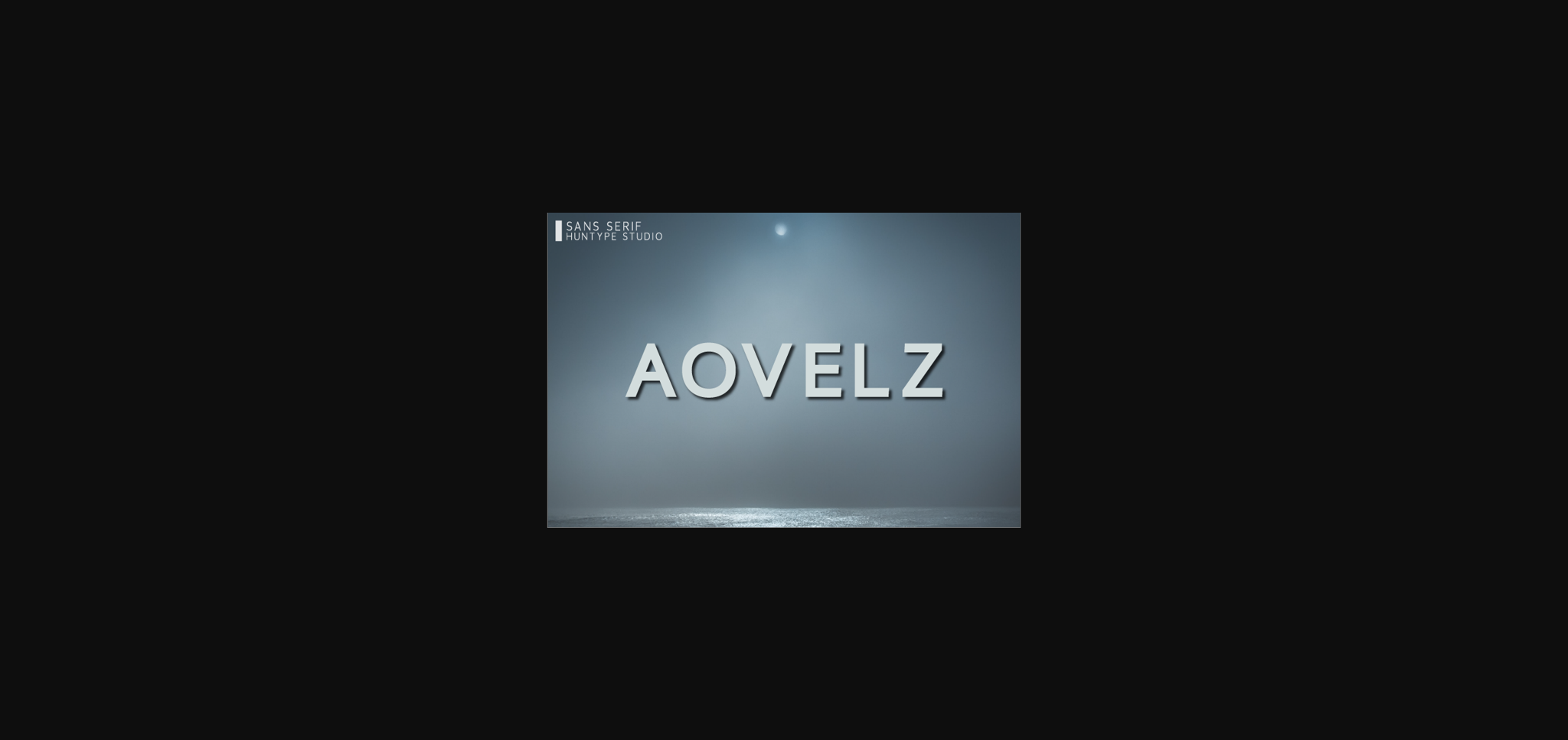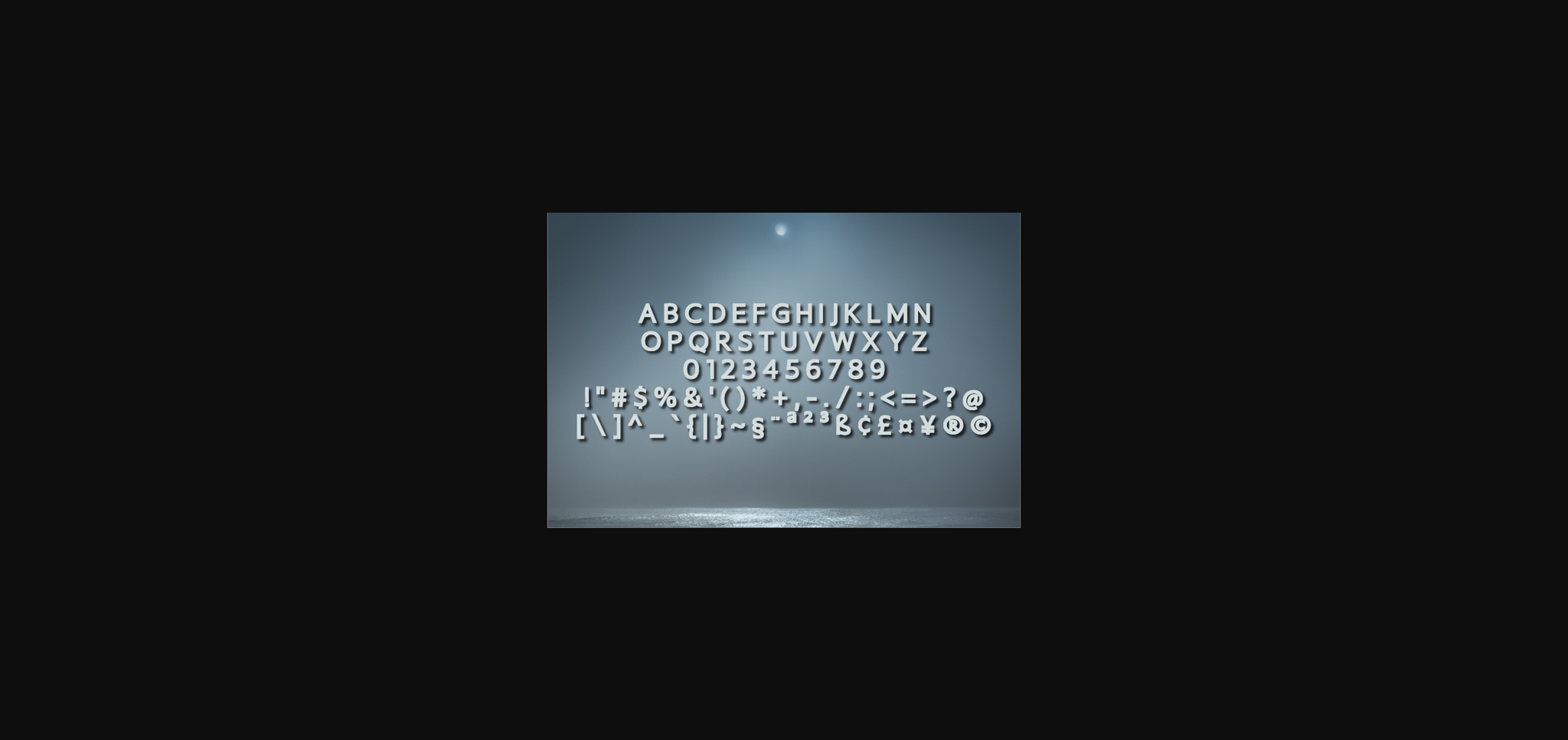
Aovelz Font
About Aovelz Font
Aovelz is a fancy and contemporary sans serif font. It will complement any design need perfectly with its perfectly balanced mix of the smooth and sharp!